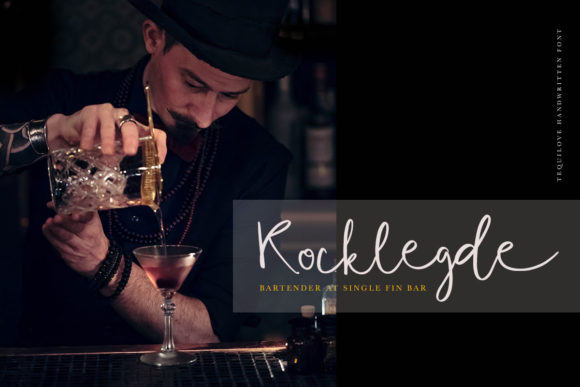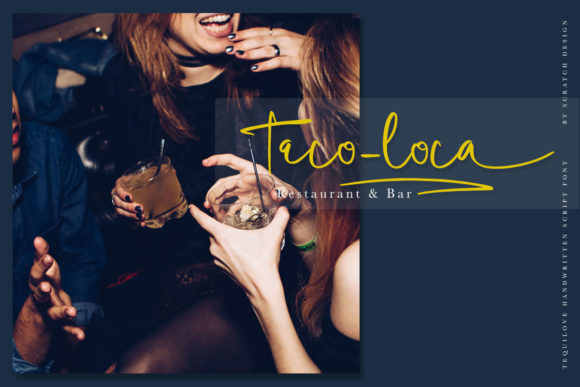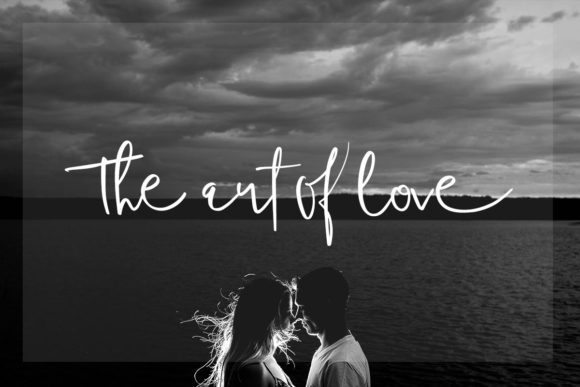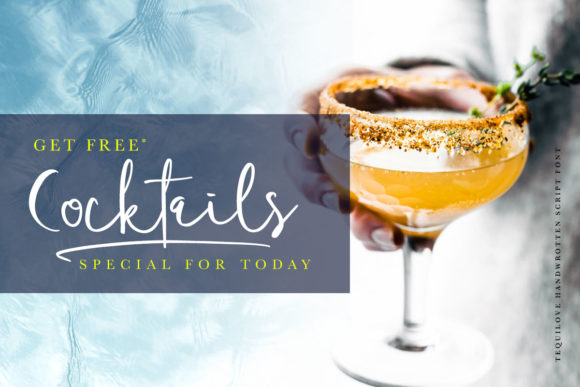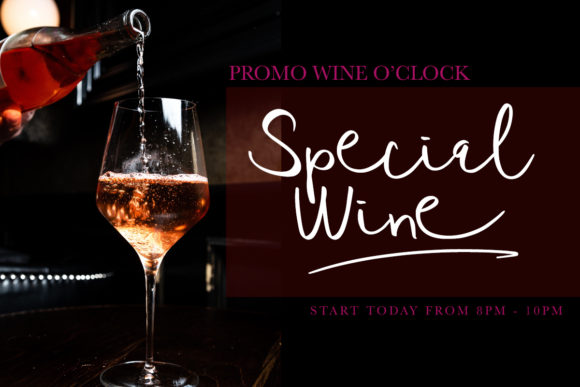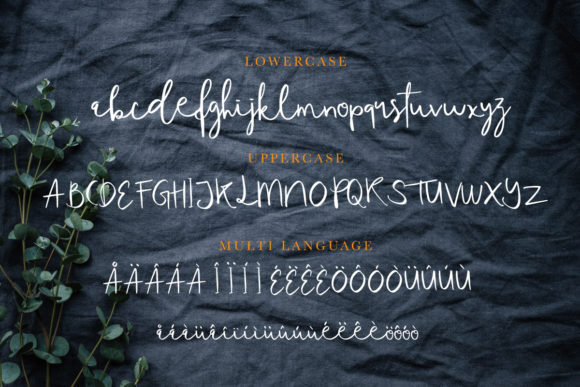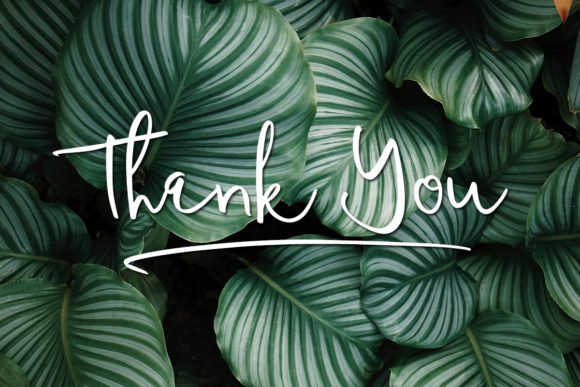
HomeScript FontsTequilove Font Script Fonts Tequilove Font FacebookXPinterestWhatsApp Tequilove Font Poster 2 Tequilove Font Poster 3 Tequilove Font Poster 4 Tequilove Font Poster 5 Tequilove Font Poster 6 Tequilove Font Poster 7 Tequilove Font Poster 8 About Tequilove Font Tequilove is a casual and modern handwritten font. Use it to add a contemporary feel to any design project! DOWNLOAD ON CREATIVE FABRICAThis font is sold and delivered by Creative Fabrica. Font Canyon may earn a commission if you buy through this link. People also explored Our Heart Font Cohort Monogram K | Monofont Caps K Font Easter Rabbit Font Handriting Font Winter Holiday Font Hughes Font Hamirez Font Sword Knights Font 466 0 TagsTequilove Font Previous articleRonhilli FontNext articleBeauty Flowers Font LEAVE A REPLY Cancel reply Comment: Please enter your comment! Name:* Please enter your name here Email:* You have entered an incorrect email address! Please enter your email address here Website: Save my name, email, and website in this browser for the next time I comment. Personal Use Free Houstonville Personal Use Free Read more about this font Summer Pisces Personal Use Free Read more about this font Doriss Girls Family Personal Use Free Read more about this font Monogram Veg Personal Use Free Read more about this font BLOG To increase your work productivity, choose the most readable fonts. In today's fast-paced work environment, where digital communication and information consumption are integral to our daily routines, the choice of fonts can significantly impact... Elegant Wedding Invitation Fonts – Handwritten & Script Fonts 5 Fonts That Will Dominate Design Trends in 2026 Modern Sans-Serif Fonts That Brands Love in 2025